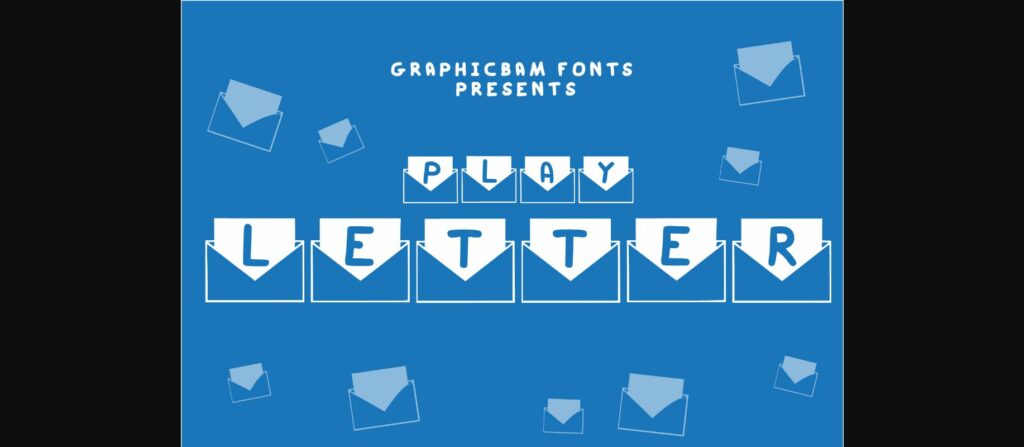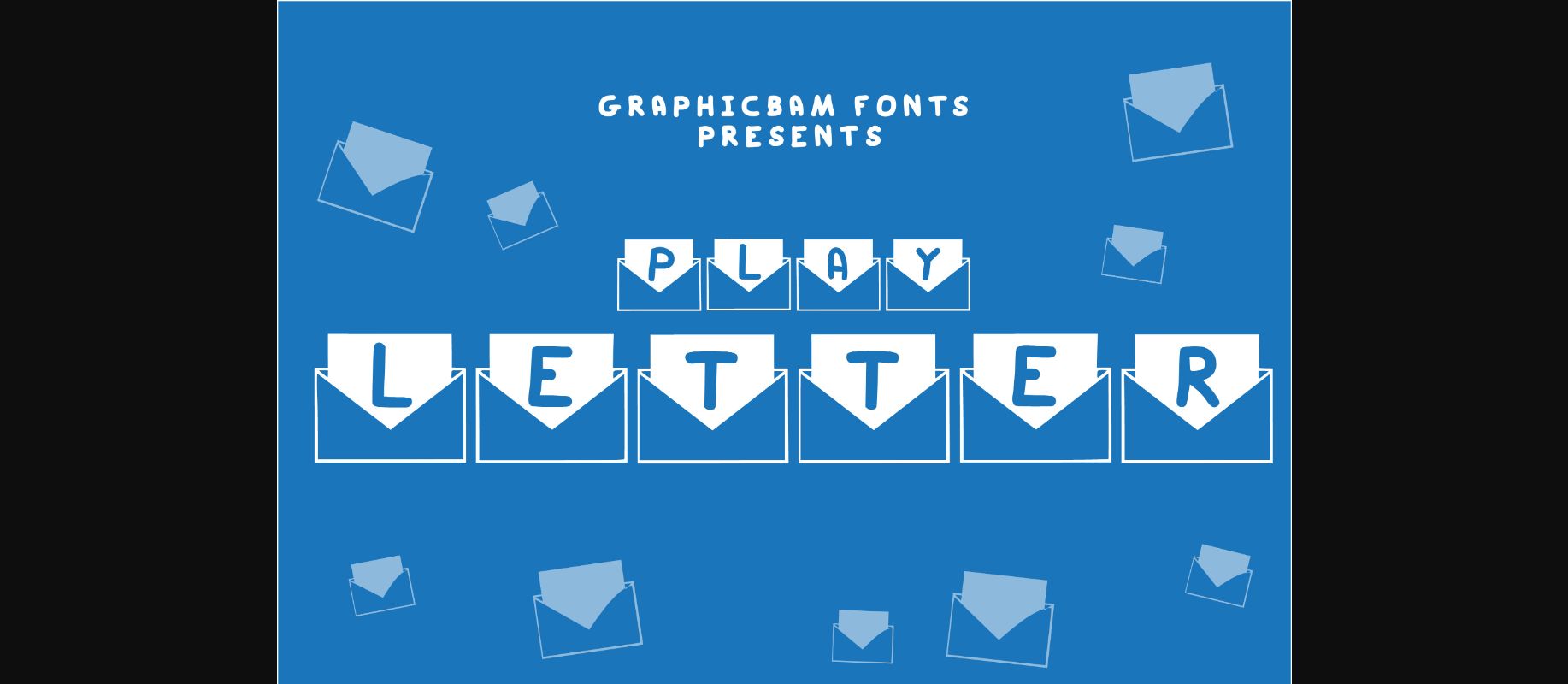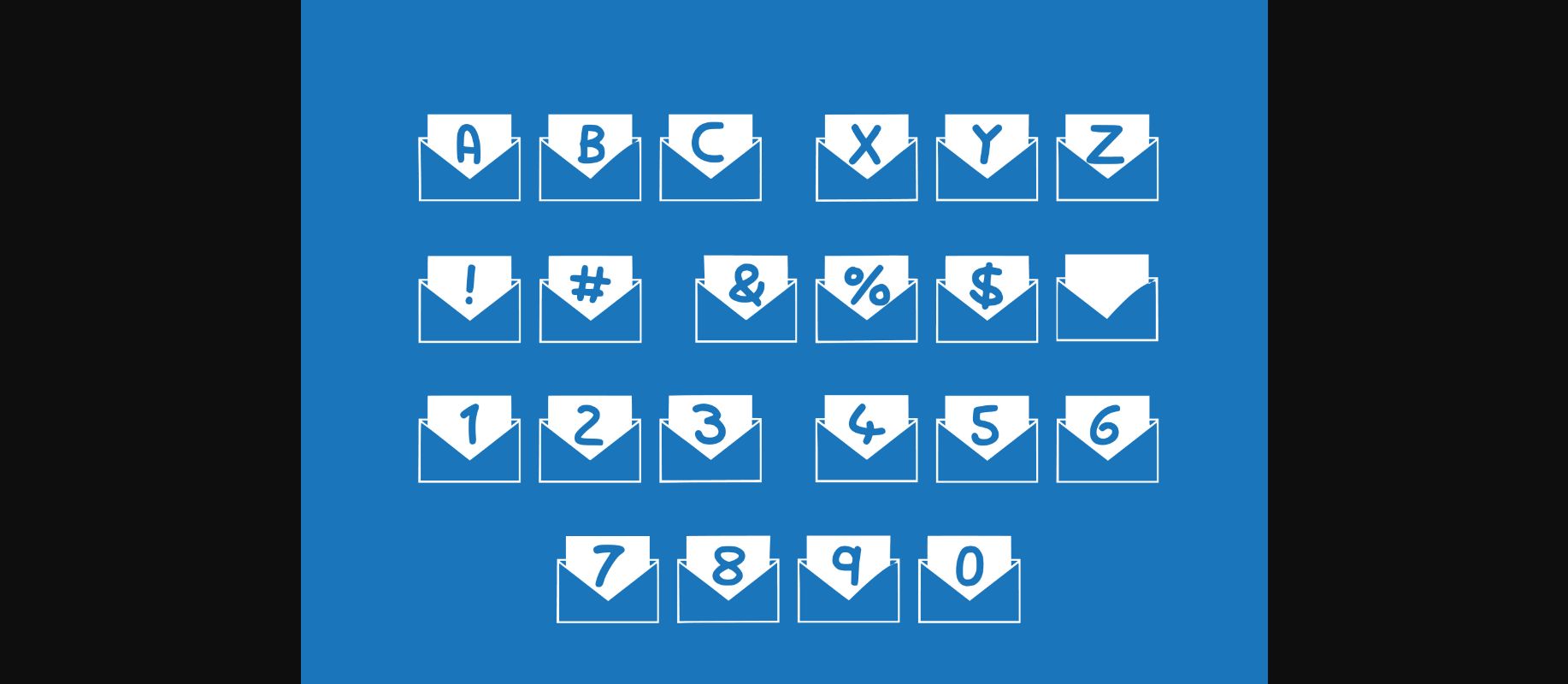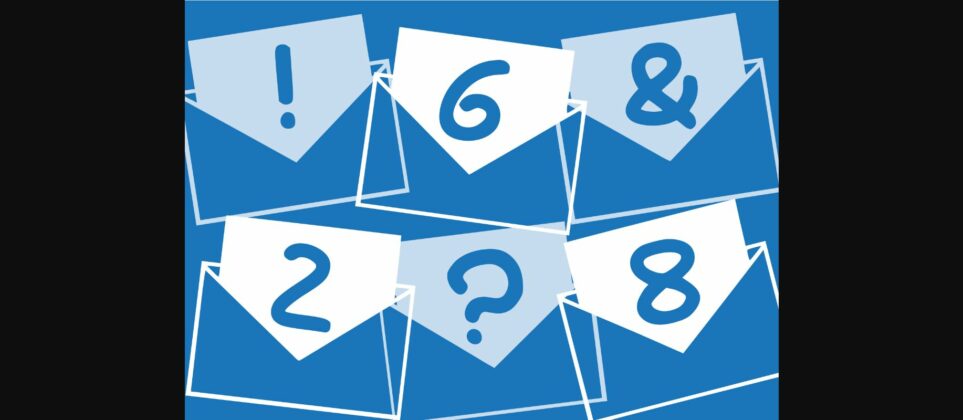
About Play Letter Font
is a cool and festive decorative font. Whether you’re using it for crafts, digital design, presentations, or making greeting cards, this font has the potential to become your favorite go-to font, no matter the occasion!